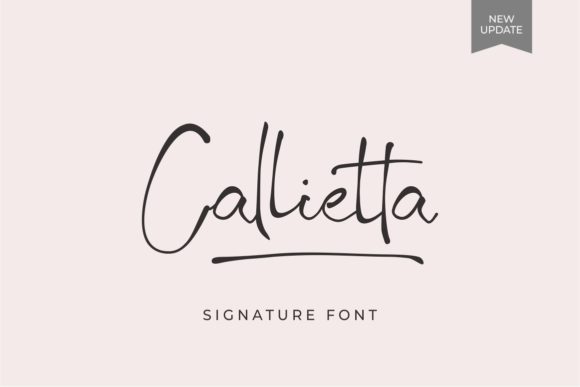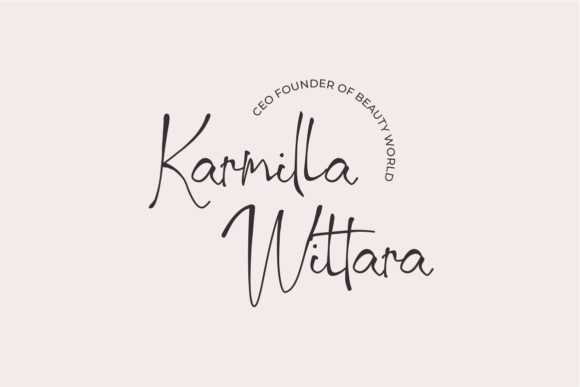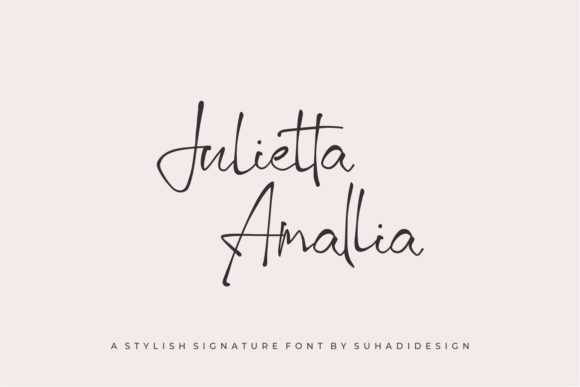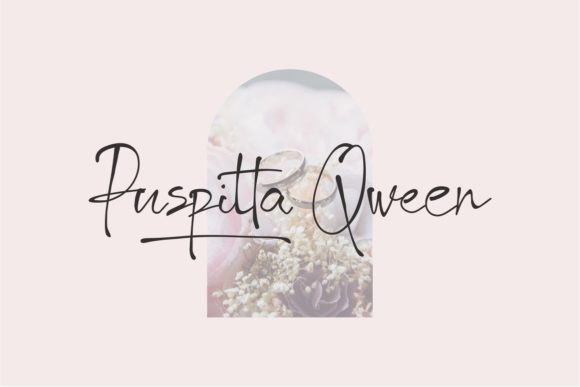
About Callietta Font
Callietta is a free-flowing script font meticulously crafted for a diverse range of design applications, including packaging products, invitation cards, flyers, mockups, and event posters. It brings forth high-quality vibes, adding a touch of sophistication and creativity to your projects. The font’s free-flowing nature imparts a sense of fluidity and elegance, making it a versatile choice for various design needs.
One of Callietta’s standout features is its beautiful and balanced character, which seamlessly integrates into a large design pool. Whether you’re working on intricate packaging designs or eye-catching event posters, this font contributes to a harmonious and visually appealing composition. The careful design of each character ensures a polished and professional appearance, making it well-suited for projects that demand a refined aesthetic.
Callietta’s PUA encoding enhances the user experience, providing easy access to a wide array of glyphs and swashes. This means designers can effortlessly incorporate decorative elements, giving them the flexibility to customize and elevate their text according to their creative vision. The font’s PUA encoding empowers designers to explore the full potential of Callietta, resulting in unique and personalized designs.
The versatility of Callietta is evident in its ability to adapt to different design contexts. Whether you’re creating elegant invitations or dynamic event posters, the font’s free-flowing script adds a dynamic and stylish touch to your typography.
In summary, Callietta goes beyond being just a font; it’s a sophisticated design tool crafted for versatility and high-quality aesthetics. Its free-flowing script, beautiful character design, and PUA encoding make it an excellent choice for designers looking to enhance their projects with a touch of elegance and creativity. Elevate your designs effortlessly with the fluid charm of Callietta.